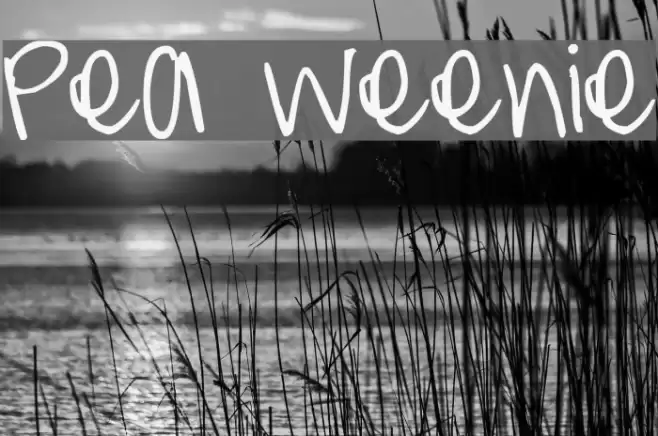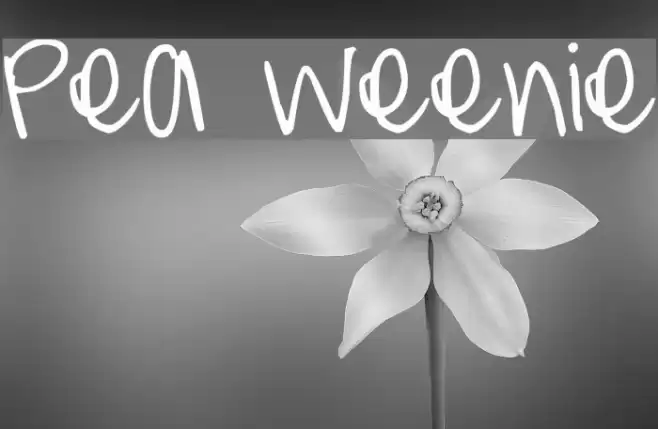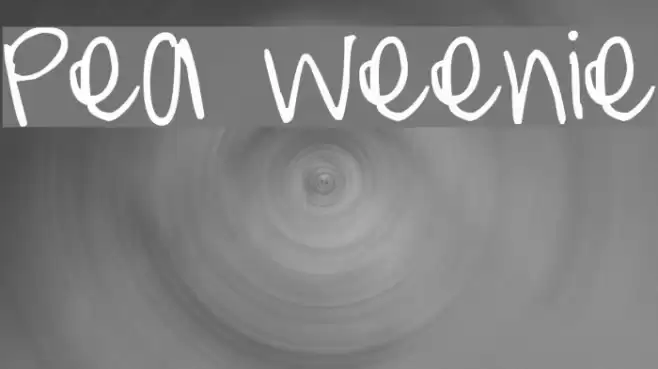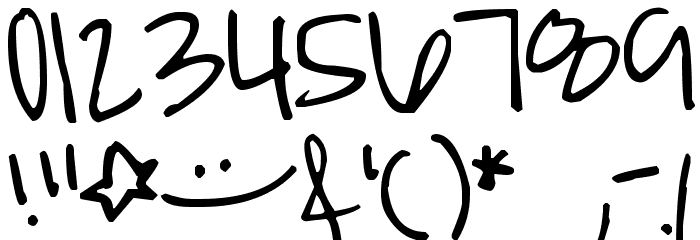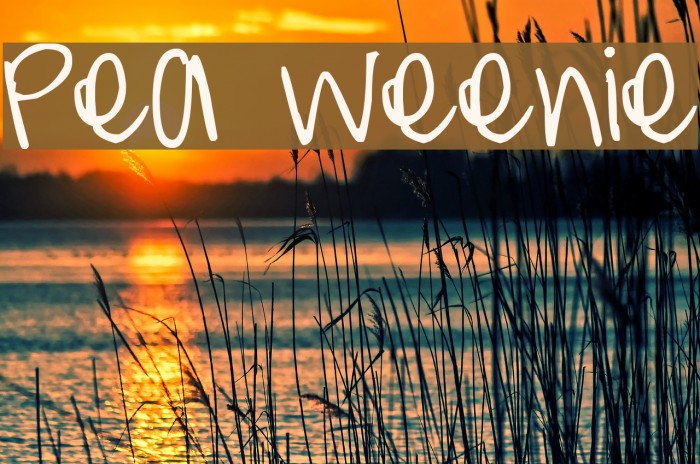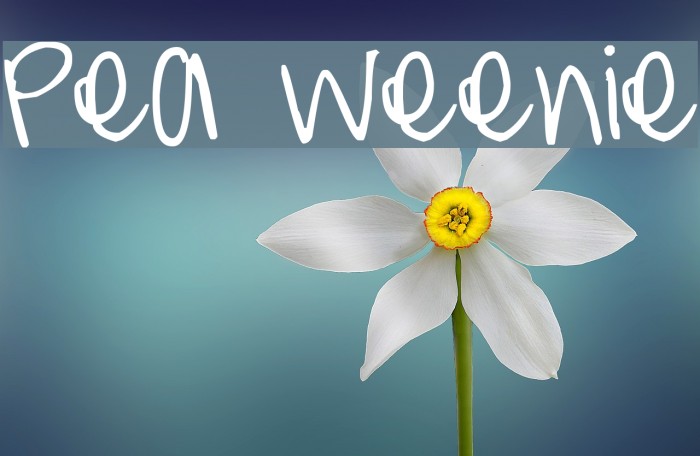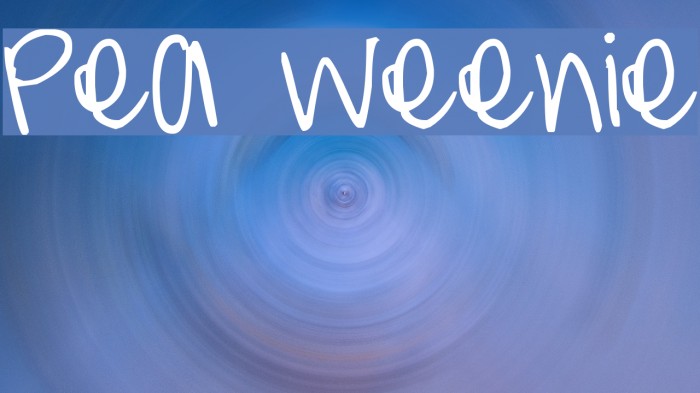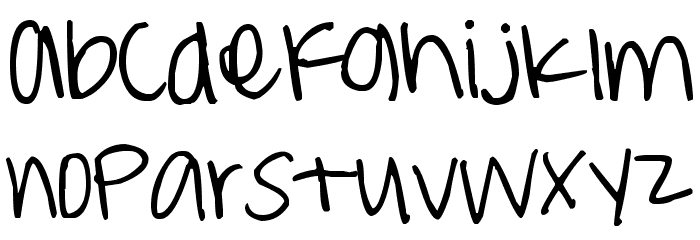
Pea Weenie Font
Pea Weenie Description
This playful and casual handwritten font exudes a youthful and energetic vibe. The letters are crafted with a smooth, flowing style that mimics natural handwriting, making it feel personal and approachable. The uppercase and lowercase letters maintain a consistent style, with rounded edges and a slight tilt that adds to the informal aesthetic. The numbers and special characters are equally expressive, with a whimsical touch that complements the overall design. This font is perfect for projects that require a friendly and informal tone, such as children's books, personal blogs, or creative invitations.
A playful, casual handwritten font with a youthful and energetic vibe from Handwritten fonts.
- Proposed Projects: Ideal for children's books, personal blogs, creative invitations, and informal branding.
- Overall Style: Casual, Playful
- Use Case: Headlines, Informal text, Creative projects